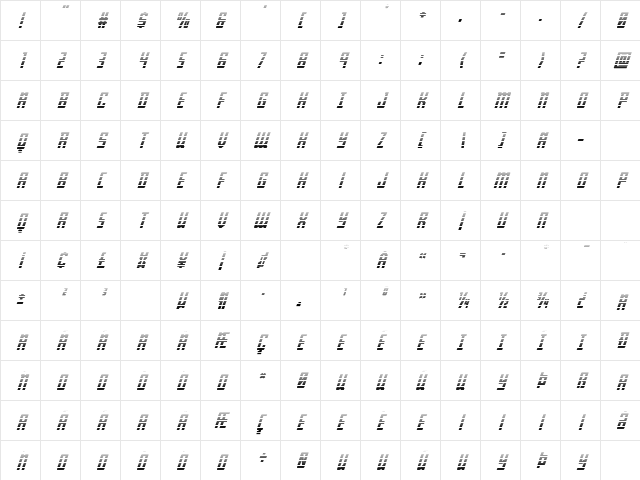
Young Patriot Gradient Italic is a composed and adaptable typeface that performs quietly and consistently across a wide range of design contexts. The slanted form adds forward momentum and visual energy.
Pro Tip: Use Young Patriot Gradient Italic for emphasis, pull quotes, and subheadings where its slanted energy can add rhythm to the layout.